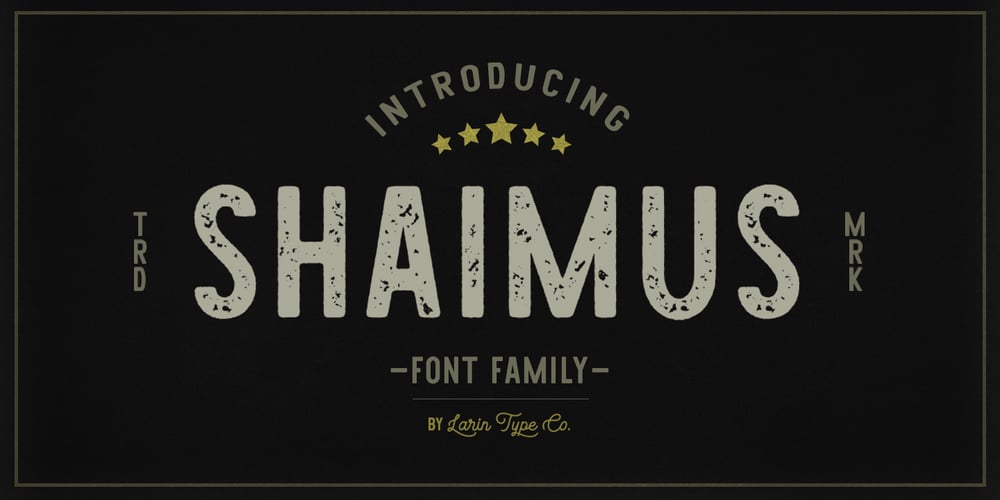
Shaimus Font Family was designed by Pavel Larin and published by Larin Type Co. Shaimus contains 6 styles and family package options. Shaimus is a multi-purpose and very legible font family. It will fit perfectly in a vintage and modern styles. It is great for creating logos, layouts, templates, advertisements and more.